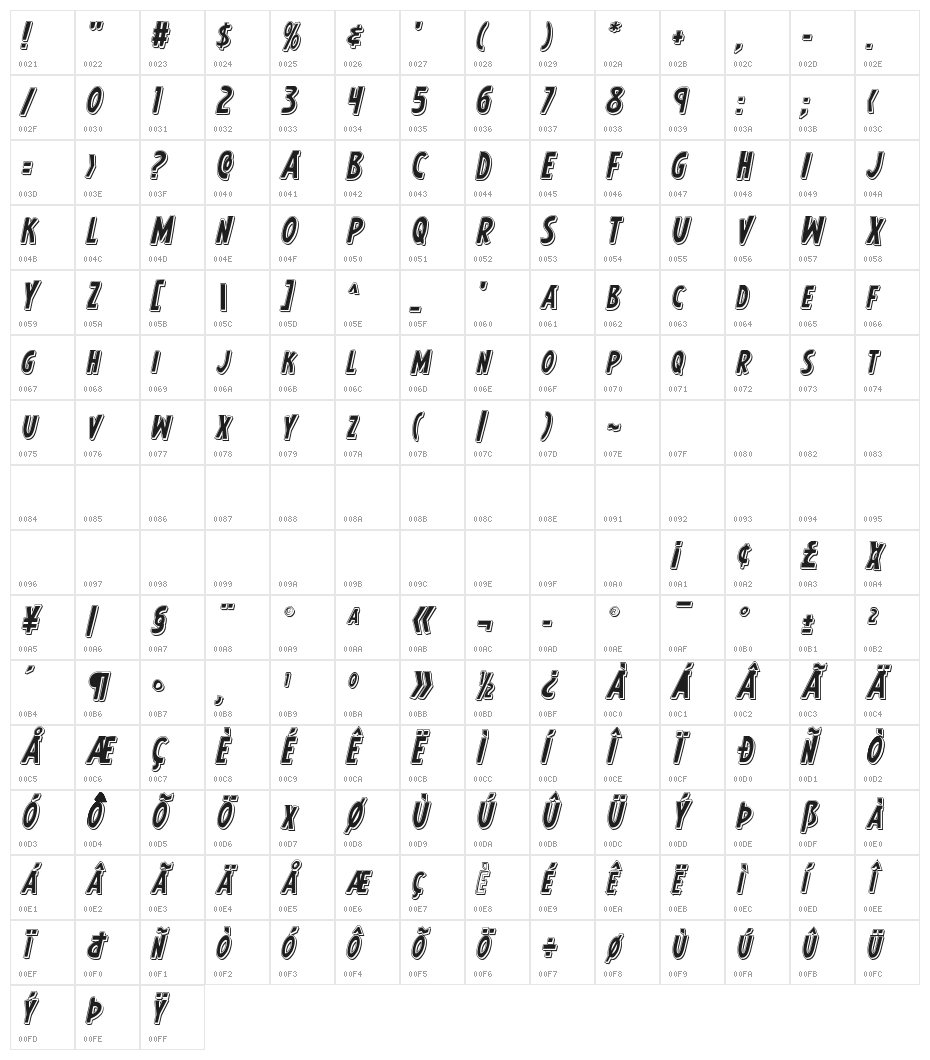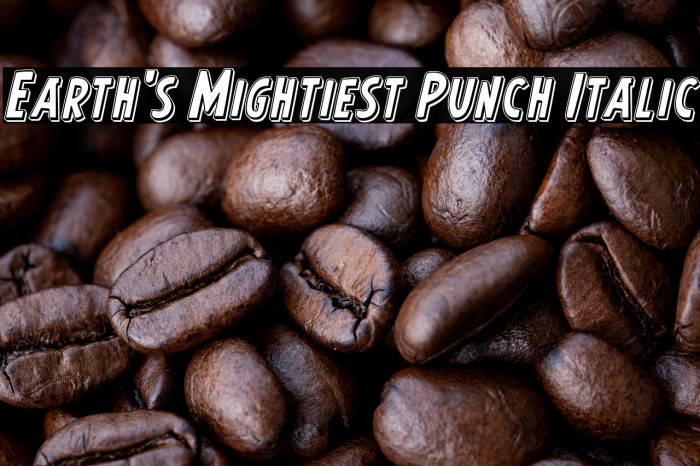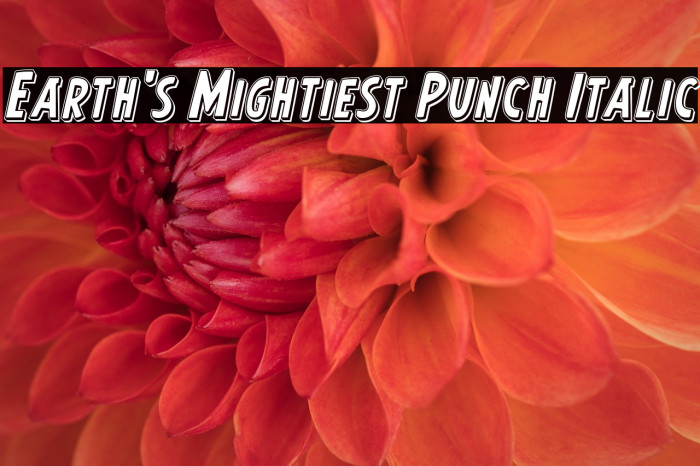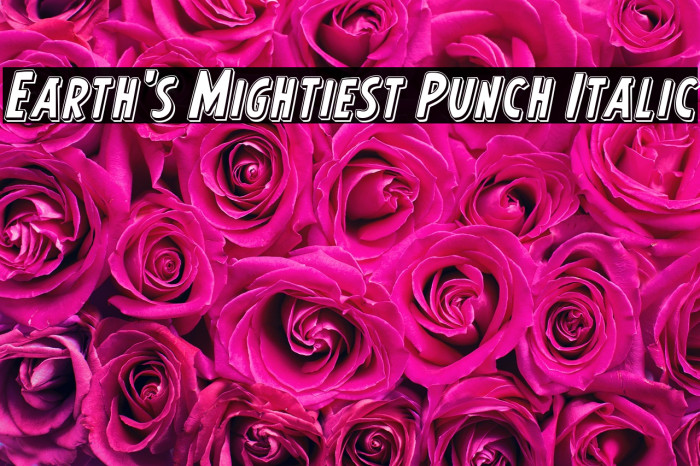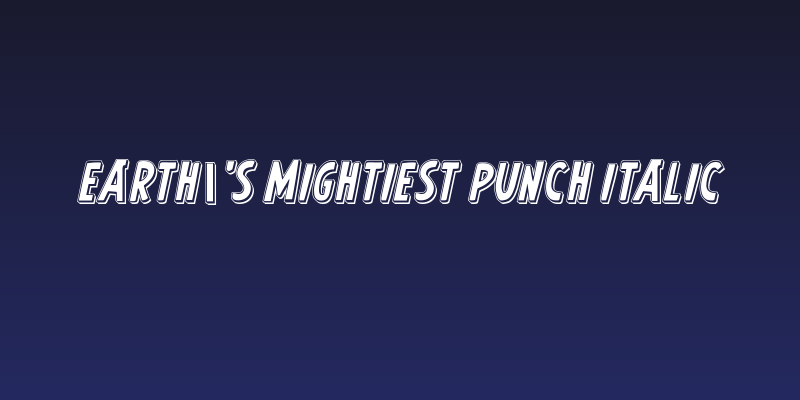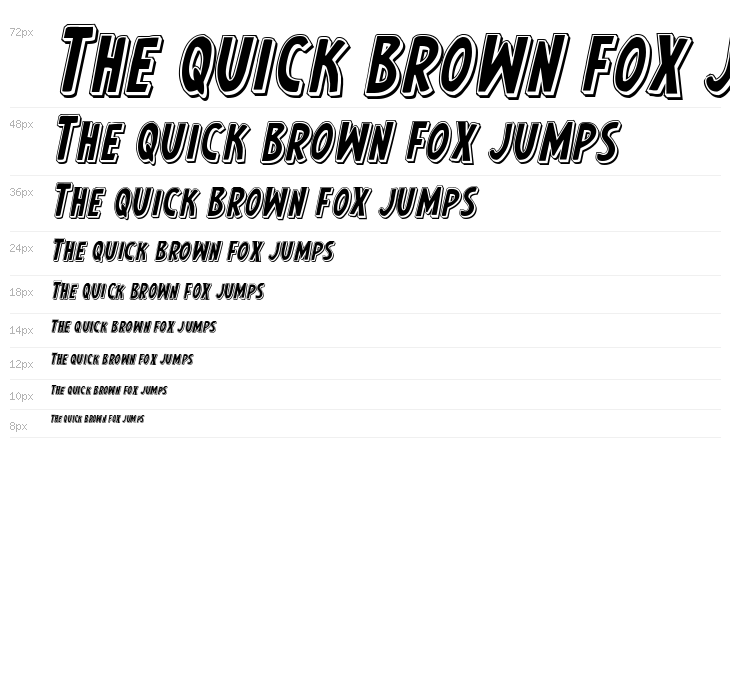
Earth's Mightiest Punch Italic Font
Earth's Mightiest Punch Italic Description
This bold and dynamic font features a strong italic slant, giving it a sense of motion and energy. The characters are outlined with a thick black border, enhancing their visibility and impact. The design is reminiscent of comic book lettering, with exaggerated angles and a playful, adventurous feel. The uppercase letters are prominent and commanding, while the lowercase letters maintain the same energetic style. Numbers and special characters are consistent with the overall theme, making this font versatile for various creative applications.
| Overall Style | Modern, Comic |
| Proposed Projects | Ideal for comic book titles, action-themed posters, video game graphics, and dynamic branding materials. |